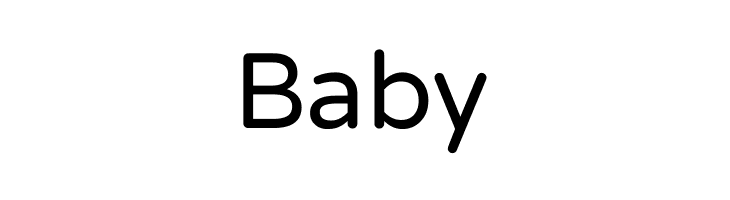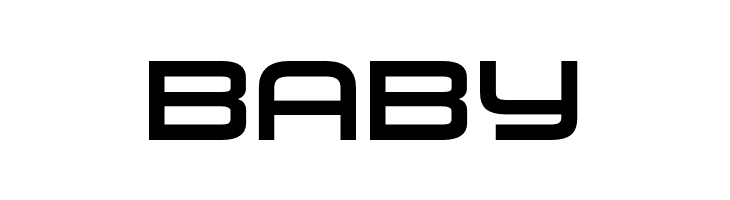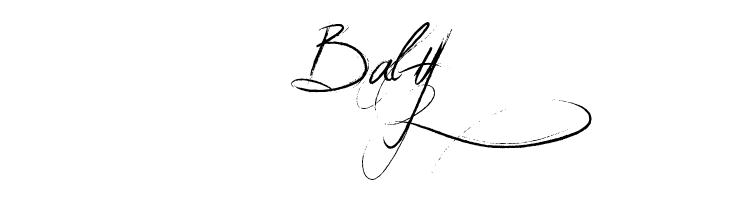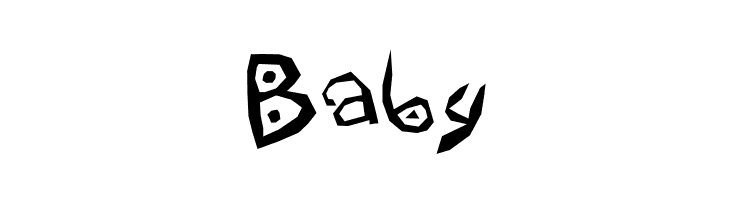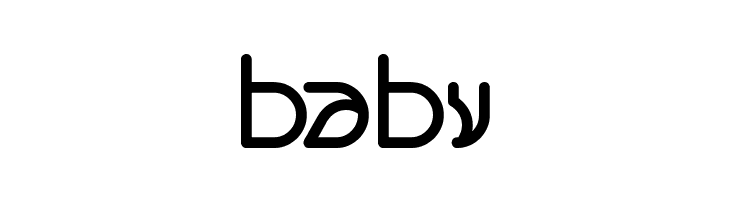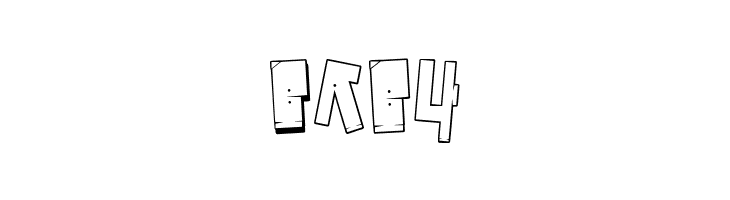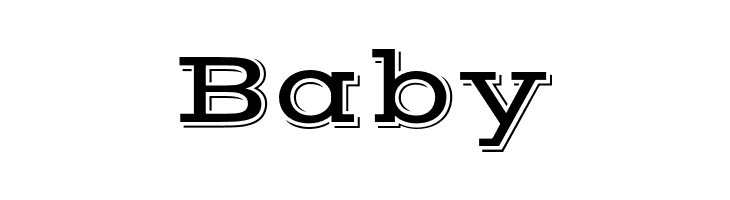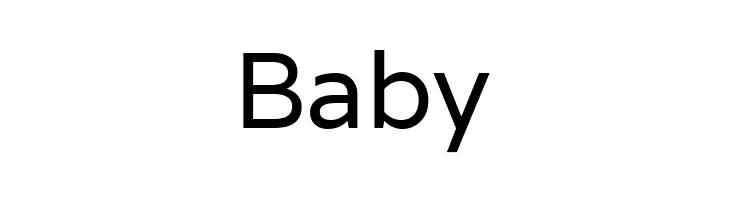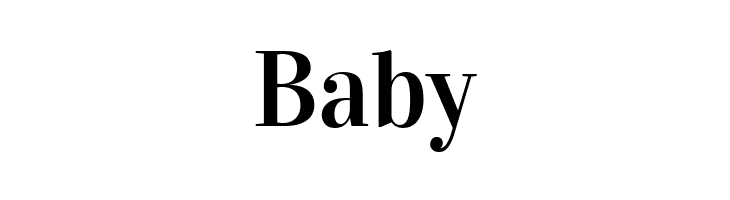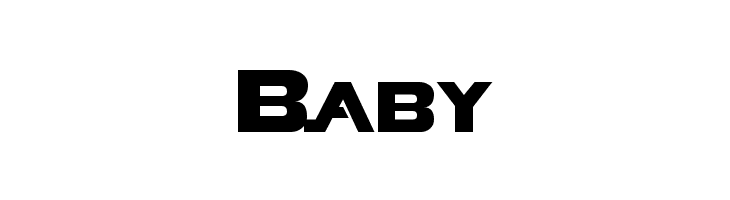
• Ute
A quirky, hand-drawn font with irregular, organic shapes.
• Utonium
A bold, geometric font with playful, modern elements and strong visual impact.
• Utonium Bold
A bold, geometric font with playful heart motifs and strong visual impact.
• Utonium Bold Italic
A bold, italicized font with geometric shapes and playful design elements.
• Utonium Italic
A bold, geometric italic font with a playful and dynamic style.
• Utopian Law
• Valdero Regular
• Vampire Street
An ornate and decorative script font with intricate loops and swirls.
• Vampirr Regular
A bold, gothic-style font with a blackletter influence.
• Van den Velde Script
An elegant and ornate script font with intricate flourishes and flowing letterforms.
• Vanberg
A dynamic, slanted script font with bold, cursive letters.
• Vandal On The Fluid
A bold, graffiti-inspired font with a three-dimensional effect and strong contrast.
• Varela
A modern sans-serif font with rounded edges and balanced proportions.
• Varela Round
A clean, rounded typeface with a friendly and modern aesthetic.
• Varela Round Regular
A modern, rounded sans-serif font with a friendly and approachable style.
• VarelaRound
A modern, rounded font with clean lines and a friendly appearance.
• Variety_free-version
A playful and whimsical font with quirky, uneven letterforms.
• Vast Shadow Regular
A bold, shadowed font with a three-dimensional effect, perfect for headlines.
• VastShadow-Regular
A bold, shadowed decorative font with a modern and vintage appeal.
• VE vastagurly Display